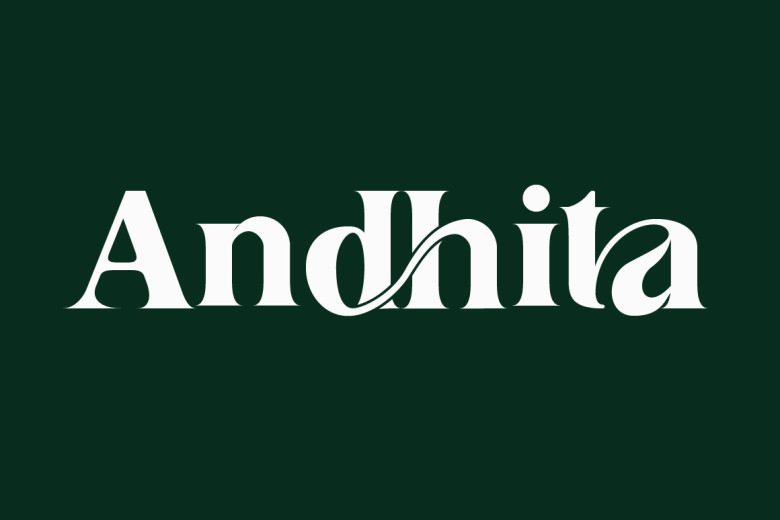
Andhita Font
Andhita is a beautiful serif font with a large following. This font will give the finishing touches to your design, with little effort on your part putting you ahead of the competition.
Andhita Serif Font